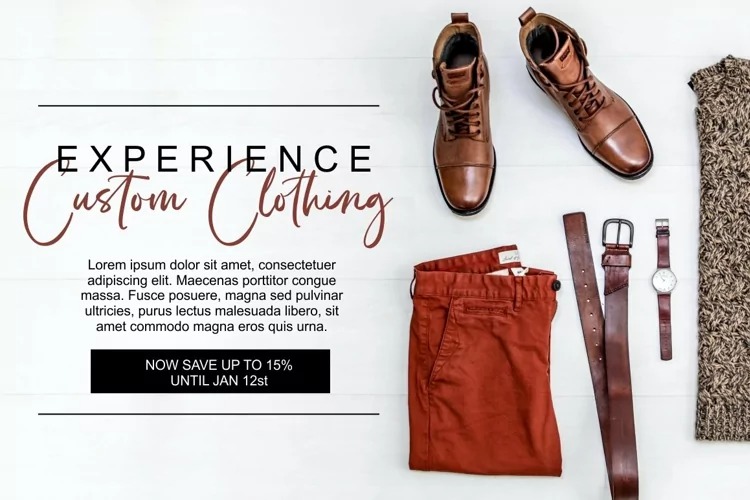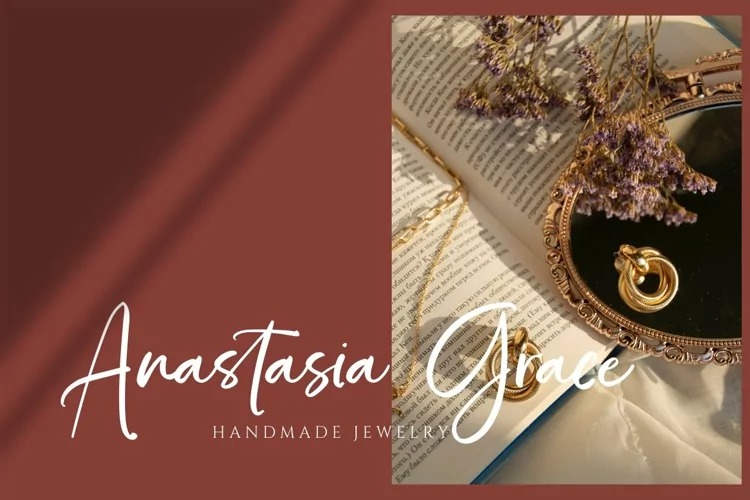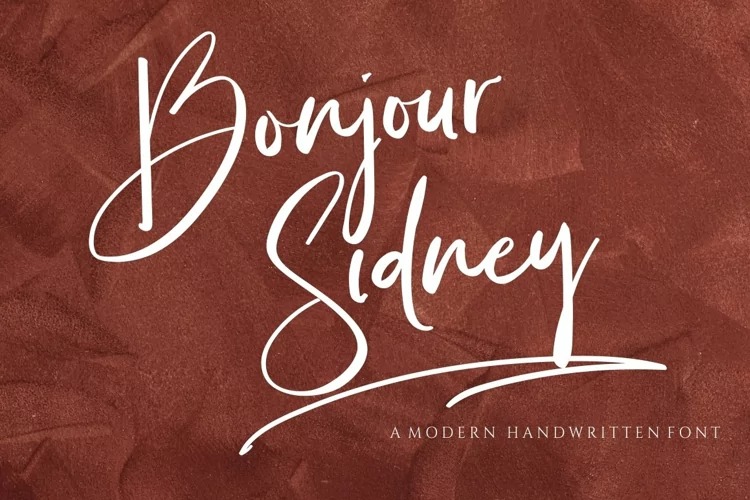
Bonjour Sydney Script Font
This is an awesome and bolded script typeface that is incredibly versatile and will look awesome on logos, branding materials, wedding and event stationery, social media overlays, cards and so on.
Bonjour Sidney includes full set of lovely uppercase and lowercase letters, multilingual symbols, numerals, punctuation, ligatures nd swashes.